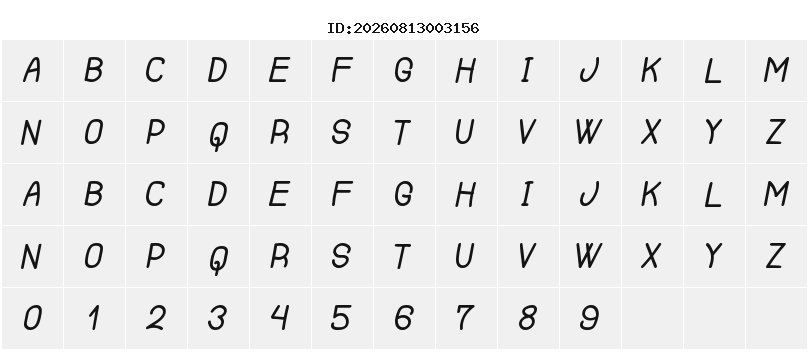
• Font Name: Renegade Of South
Renegade Of South.ttf is a modern, elegant sans-serif font designed for ultimate readability and visual harmony. Perfect for branding, headlines, web design, and print materials.